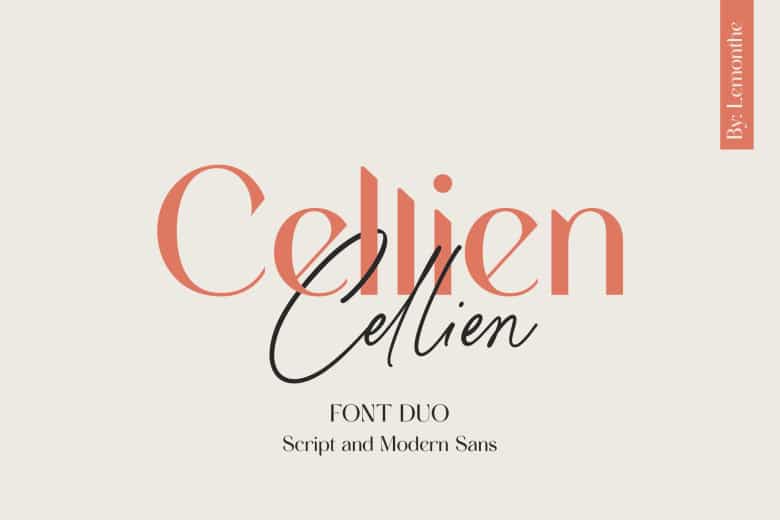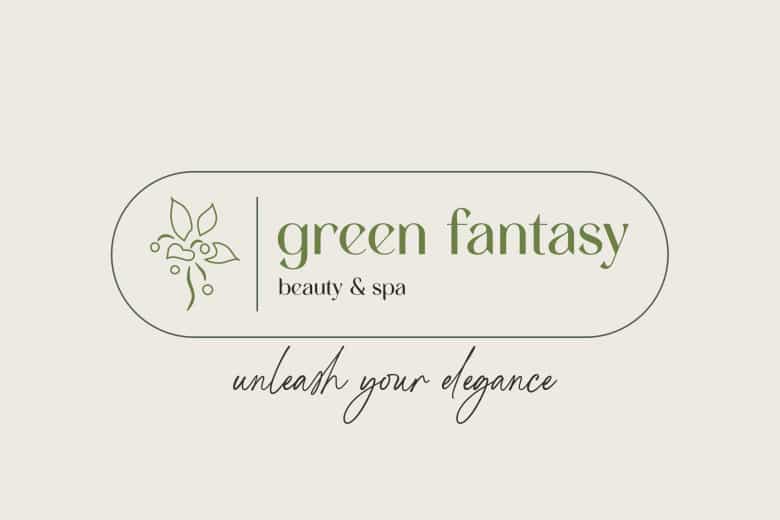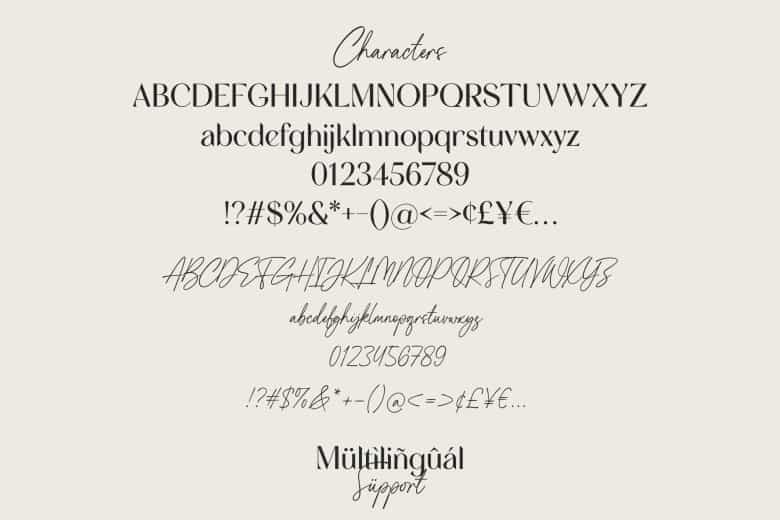
Cellien Font Duo can be best described as an amalgamation of sans-serif and script fonts that present an elegant blend of modernity and elegance. Boasting over 140 ligatures in total, the script font features natural letterforms while its non-serif counterpart offers an elegant and refined appearance.